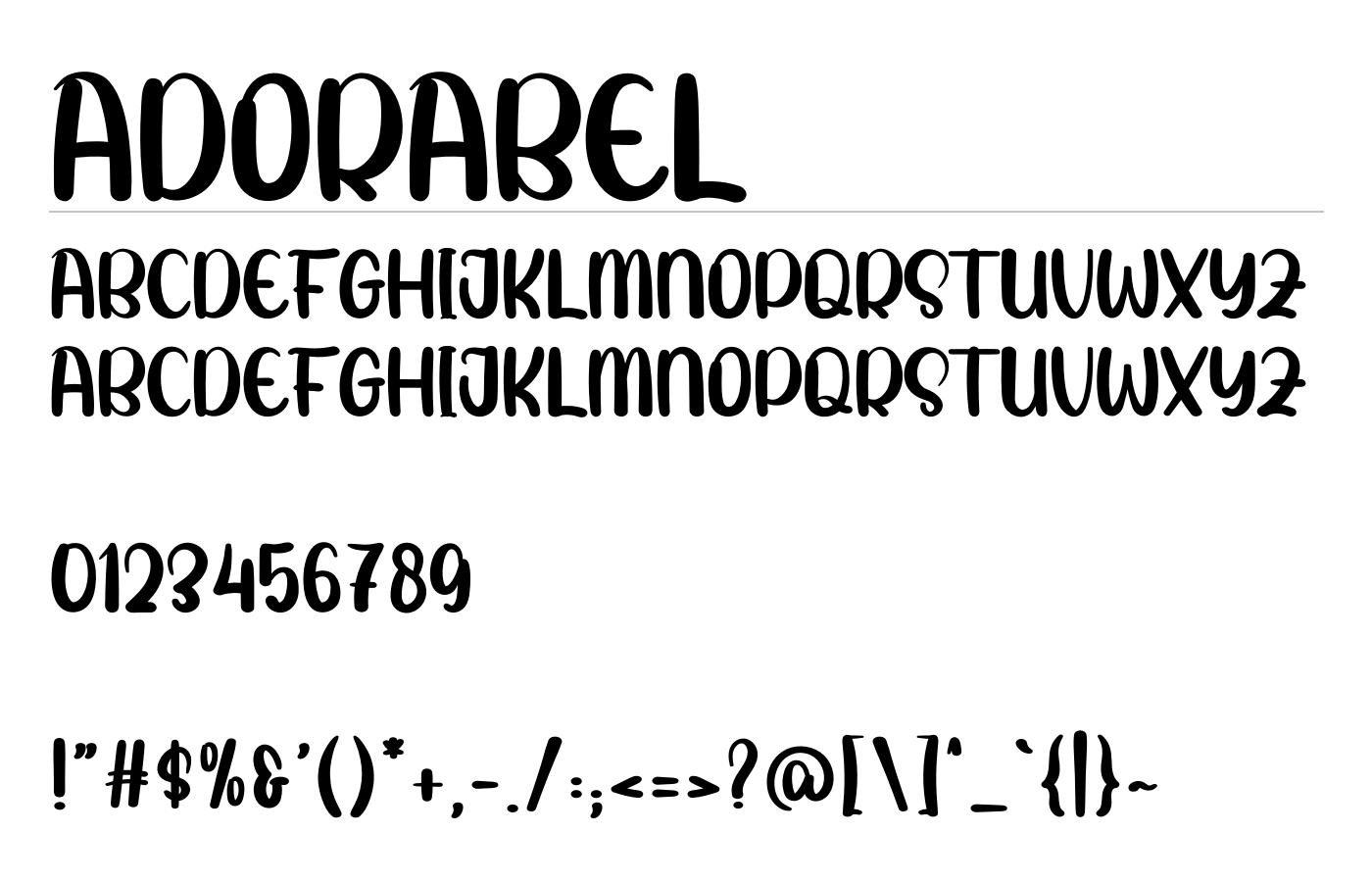
Adorabel is a playful and casual sans-serif font with a hand-drawn, slightly rounded character style that adds a friendly and approachable feel. Its medium weight and tall x-height create clear readability, making it ideal for informal branding, children's books, and fun editorial projects where warmth and personality are desired. The unique letter shapes and balanced spacing lend this font charm and versatility for creative, lighthearted designs.
Adorabel Font